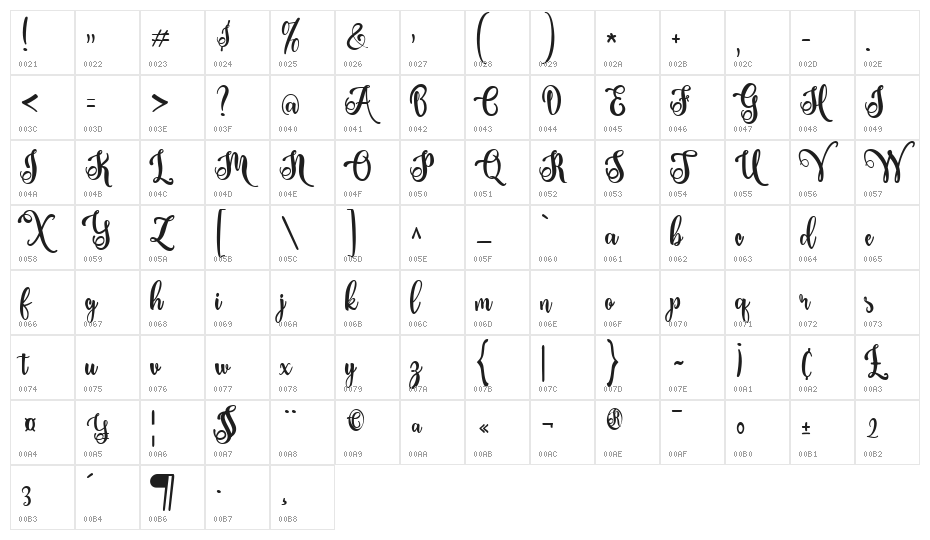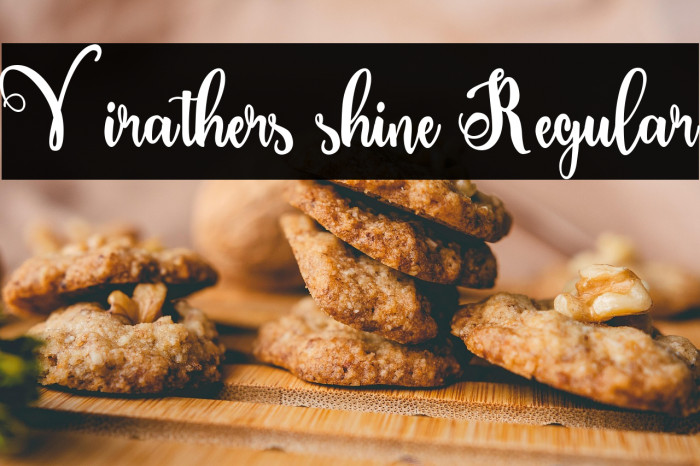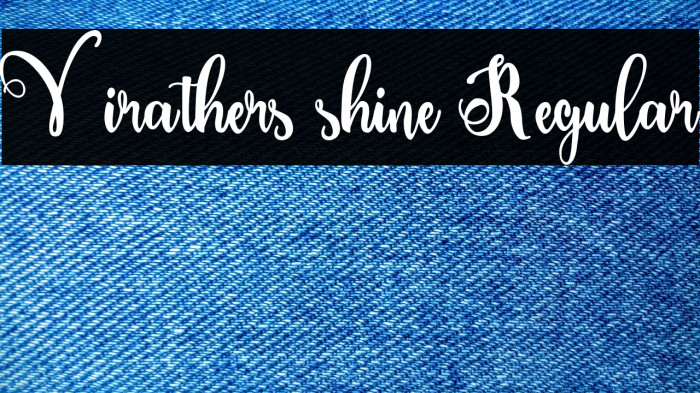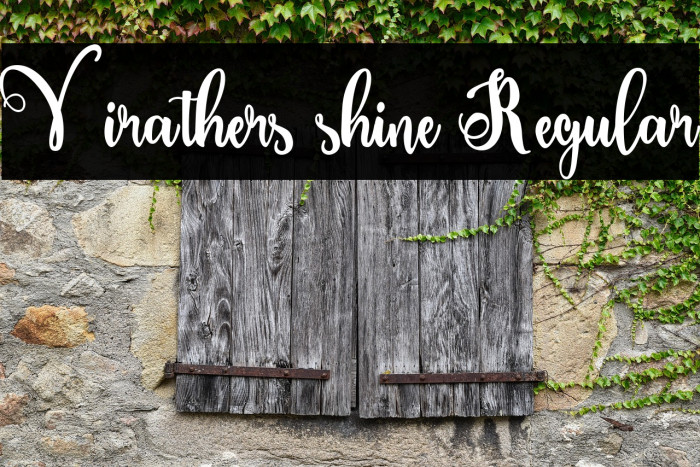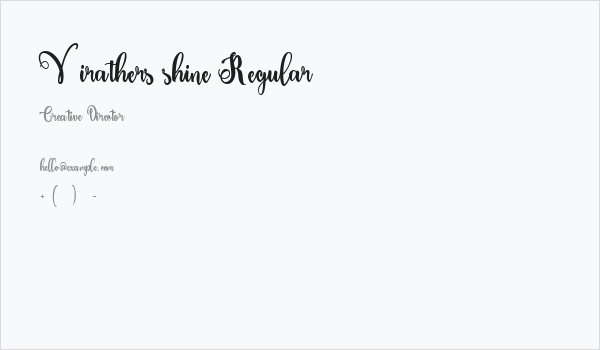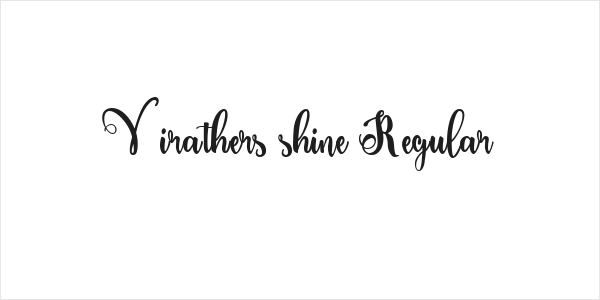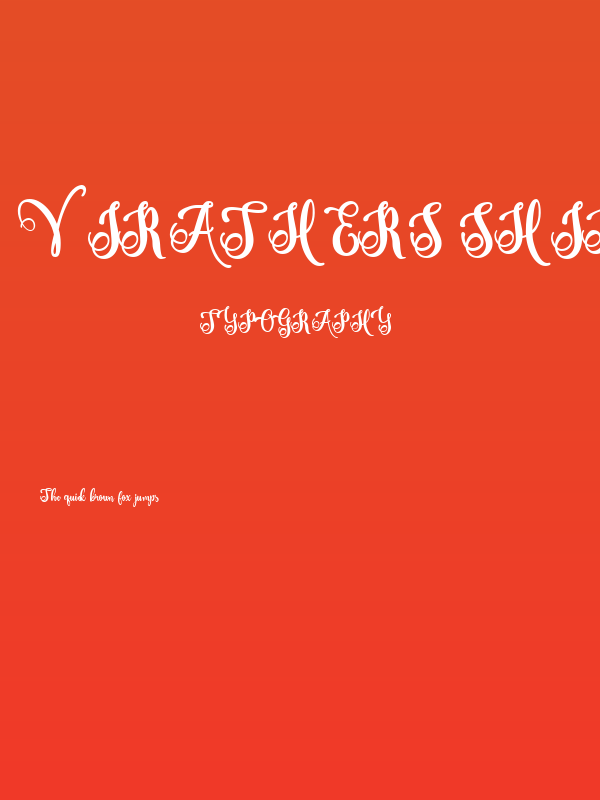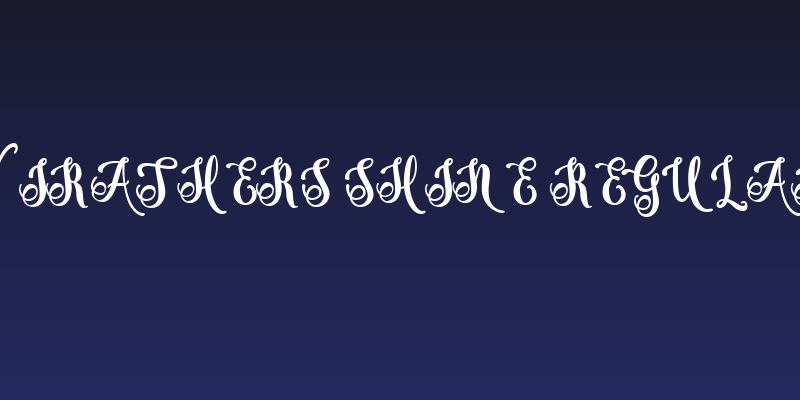
Virathers shine Regular Font
Virathers shine Regular Description
This font features an elegant and flowing script style, characterized by its ornate and decorative letterforms. The uppercase letters are particularly elaborate, with intricate loops and swirls that give a sense of movement and grace. The lowercase letters maintain a cohesive style, with smooth curves and a consistent stroke width that enhances readability. The numerals and special characters are designed to match the overall aesthetic, ensuring a harmonious appearance across all text. This font is ideal for projects that require a touch of sophistication and flair.